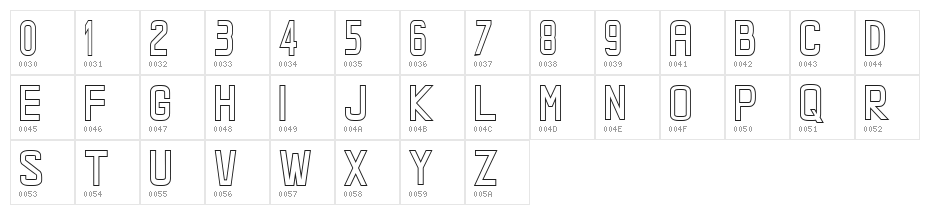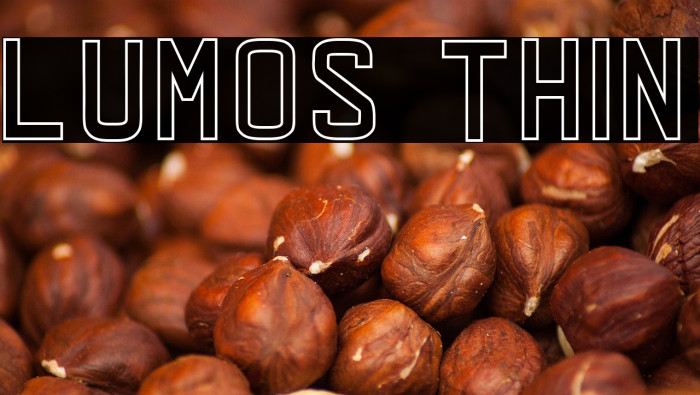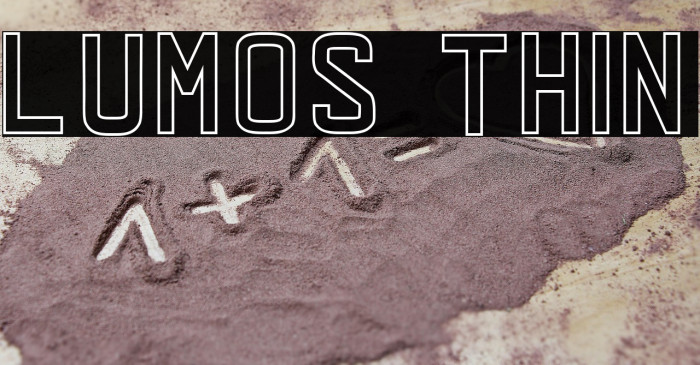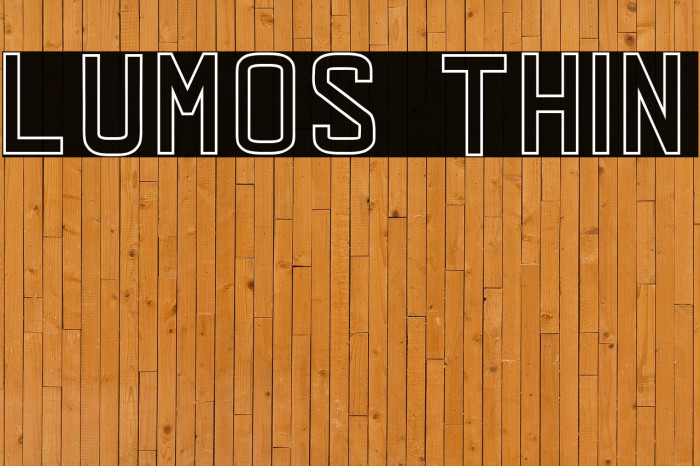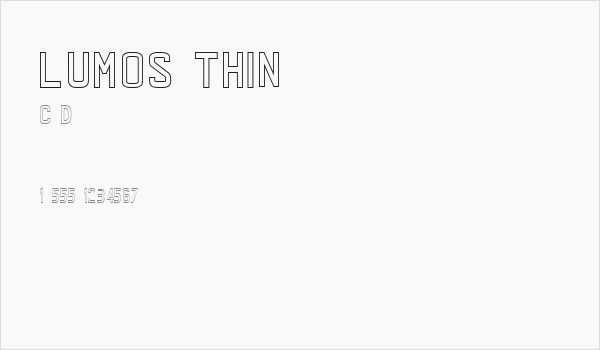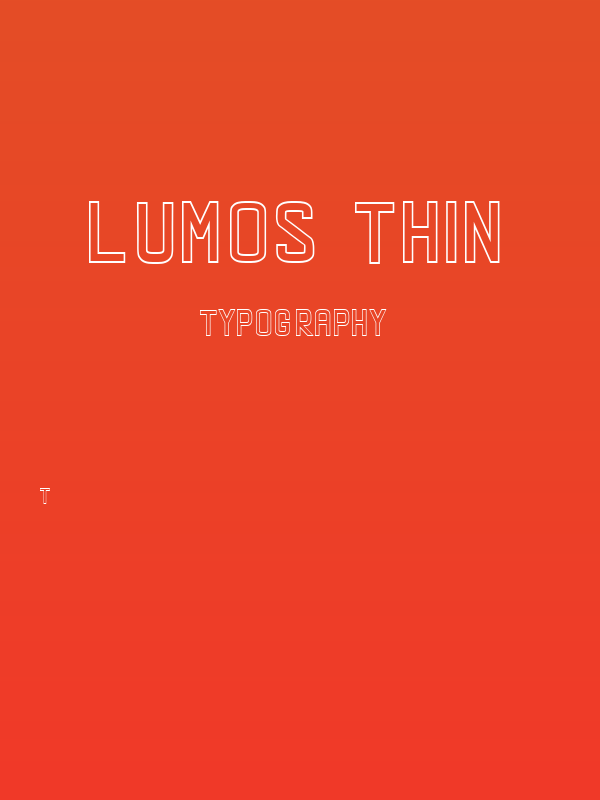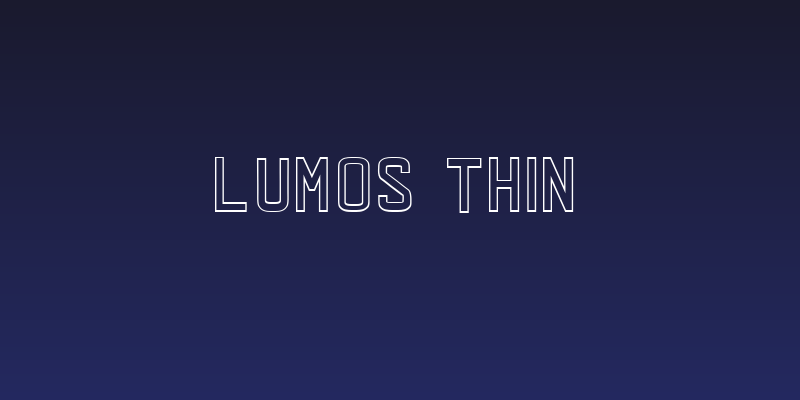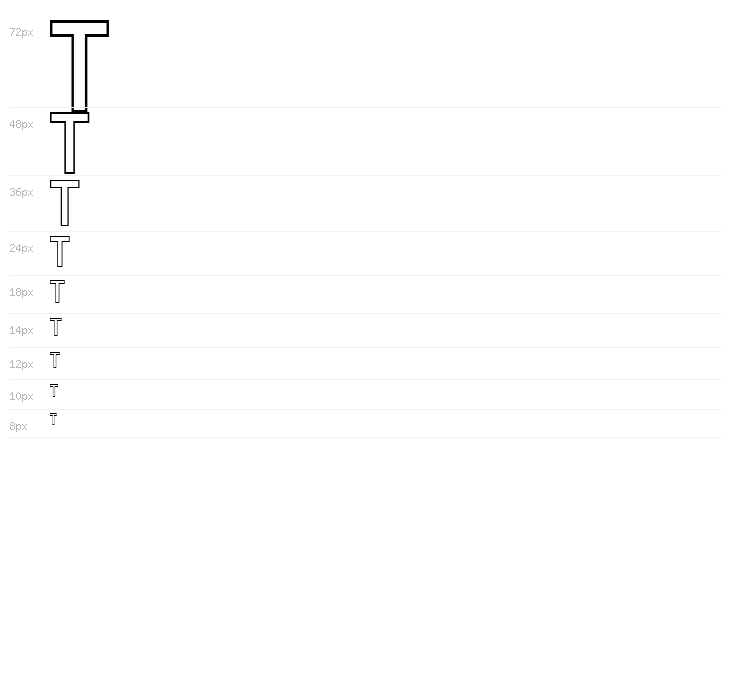
LUMOS THIN Font
LUMOS THIN Description
This font features a modern, geometric design with a thin, outlined structure. The characters are uppercase and numerals, showcasing a clean and precise aesthetic. The lines are uniform in thickness, creating a consistent and balanced look. The font's style is reminiscent of architectural blueprints or technical drawings, making it suitable for projects that require a sleek and contemporary appearance. Its open, airy design allows for excellent readability, even at smaller sizes.
| Use Case | Headlines, Logos, Digital Interfaces |
| Proposed Projects | Ideal for architectural designs, technical documents, modern branding, and digital interfaces. |